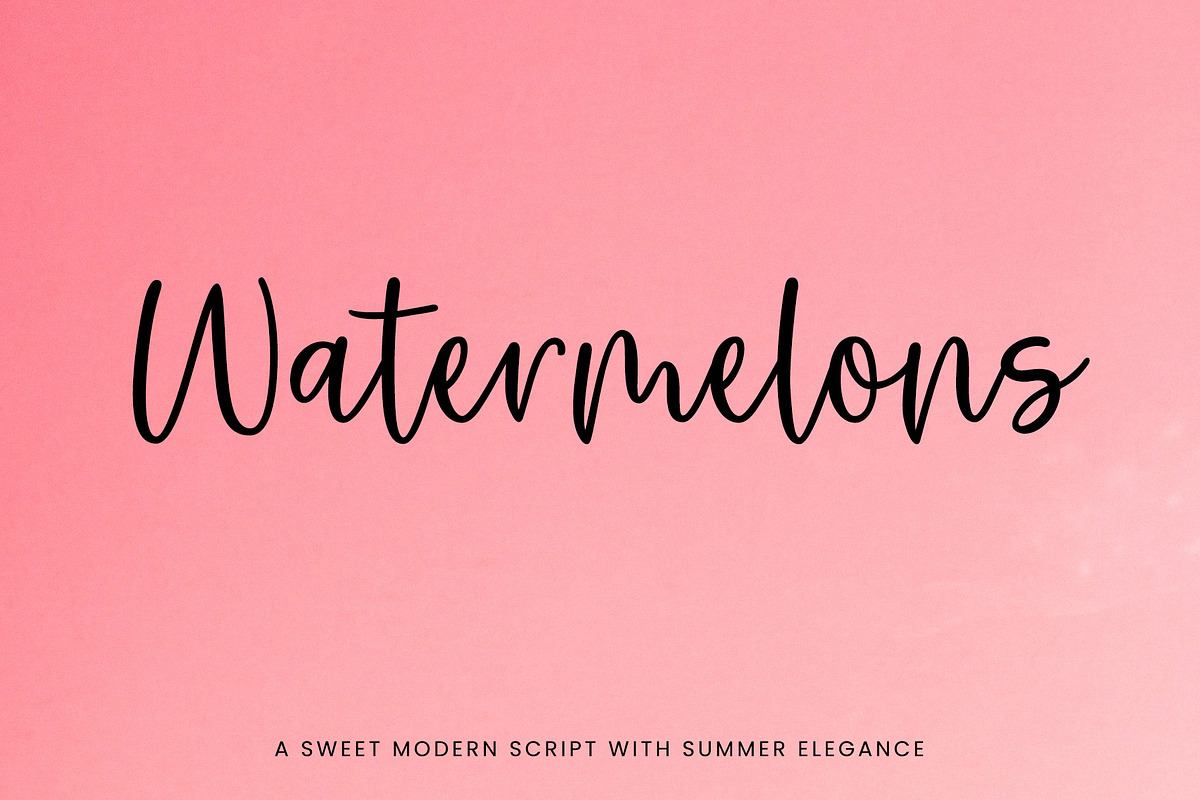
Watermelons Script Font Free Download is a juicy, playful handwritten script typeface bursting with summer vibes and sweet personality. With its flowing strokes and bouncy rhythm, this font is perfect for greeting cards, product packaging, social media posts, party invitations, and creative branding projects that need a cheerful, organic touch.
Its hand-lettered charm brings a sense of fun and freshness to every design. Whether you’re creating seasonal graphics or simply want to add a little whimsy, Watermelons Script delivers the perfect balance of style and spontaneity. Watermelons Script Font Free Download lets you explore its vibrant flair in personal projects before purchasing a commercial license.
Add a splash of summer to your designs with Watermelons Script — the handwritten font that’s as sweet as it sounds.